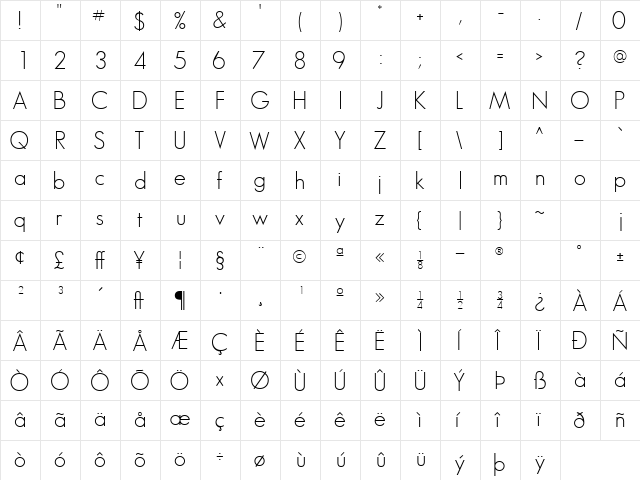
BouganSSK Regular
Design Context for BouganSSK Typeface
BouganSSK offers clean, dependable letterforms without strong stylistic allegiance, making it a practical choice for designers who need flexibility.